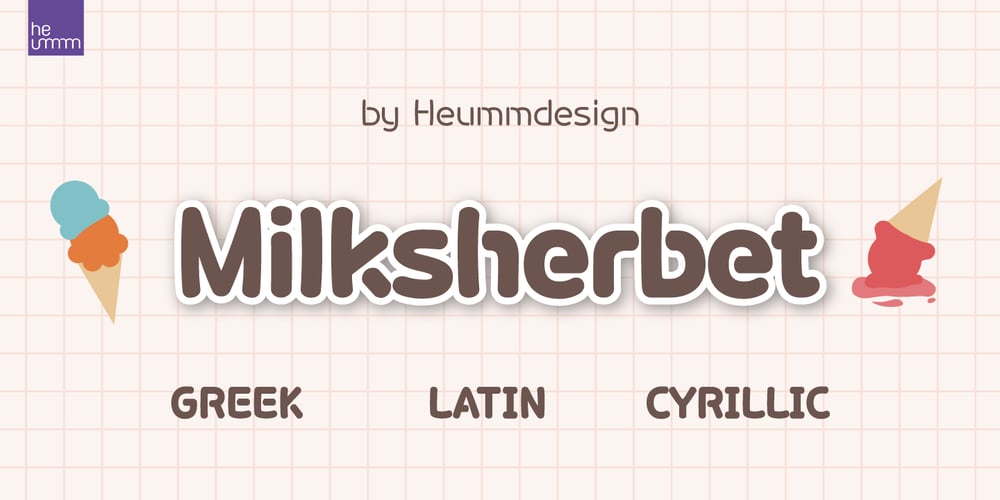
HU Milksherbet Font Family was designed by Haerin Lee and published by Heummdesign. HU Milksherbet contains 3 styles and family package options. This typeface was inspired by milk sherbet, which is enjoyed cold on a hot summer day. Rounded shapes and soft stroke endings make the typeface look cute.Heavy works great for headlines with its extra-heavy stroke weight and size, while Regular and Light are best for body text.